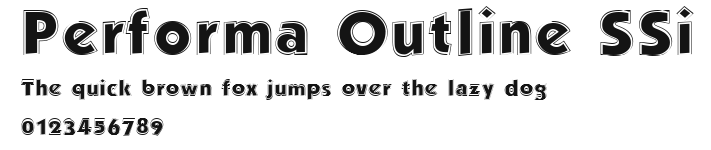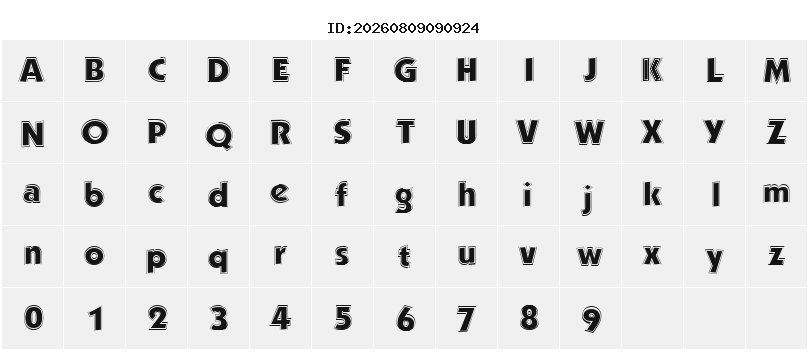
• Font Name: Performa Outline SSi
• Font Style: Outline
About Performa Outline SSi.ttf
Performa Outline SSi.ttf is a modern, elegant sans-serif font designed for ultimate readability and visual harmony. Perfect for branding, headlines, web design, and print materials.